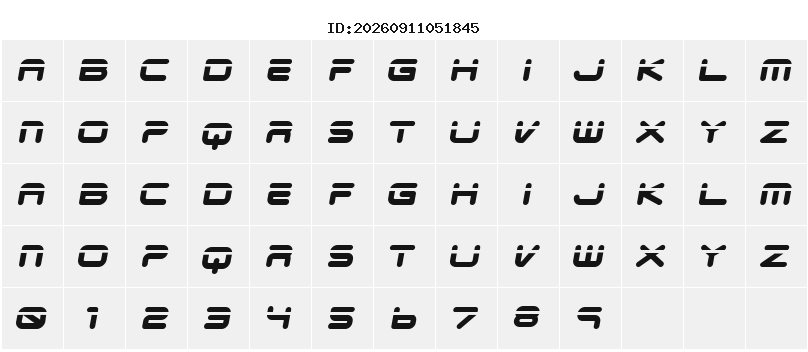
Veloped Logotype Preview
• Font Name: Veloped Logotype
• Full Font Name: Veloped Logotype
About Veloped Logotype.ttf
Veloped Logotype.ttf is a modern, elegant sans-serif font designed for ultimate readability and visual harmony. Perfect for branding, headlines, web design, and print materials.